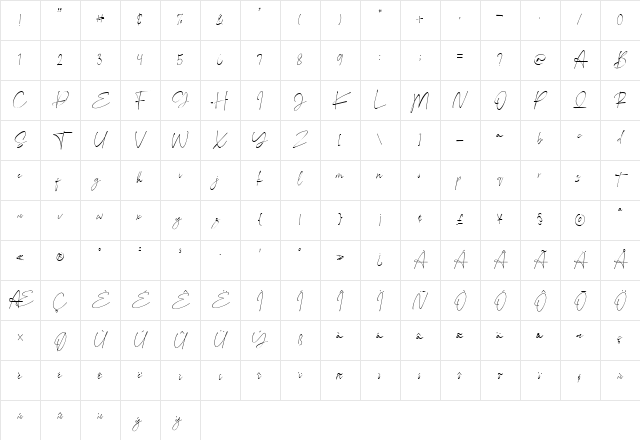
Baskara Regular
Designer: Agam Rahmadan
Baskara is a composed and adaptable typeface that performs quietly and consistently across a wide range of design contexts.